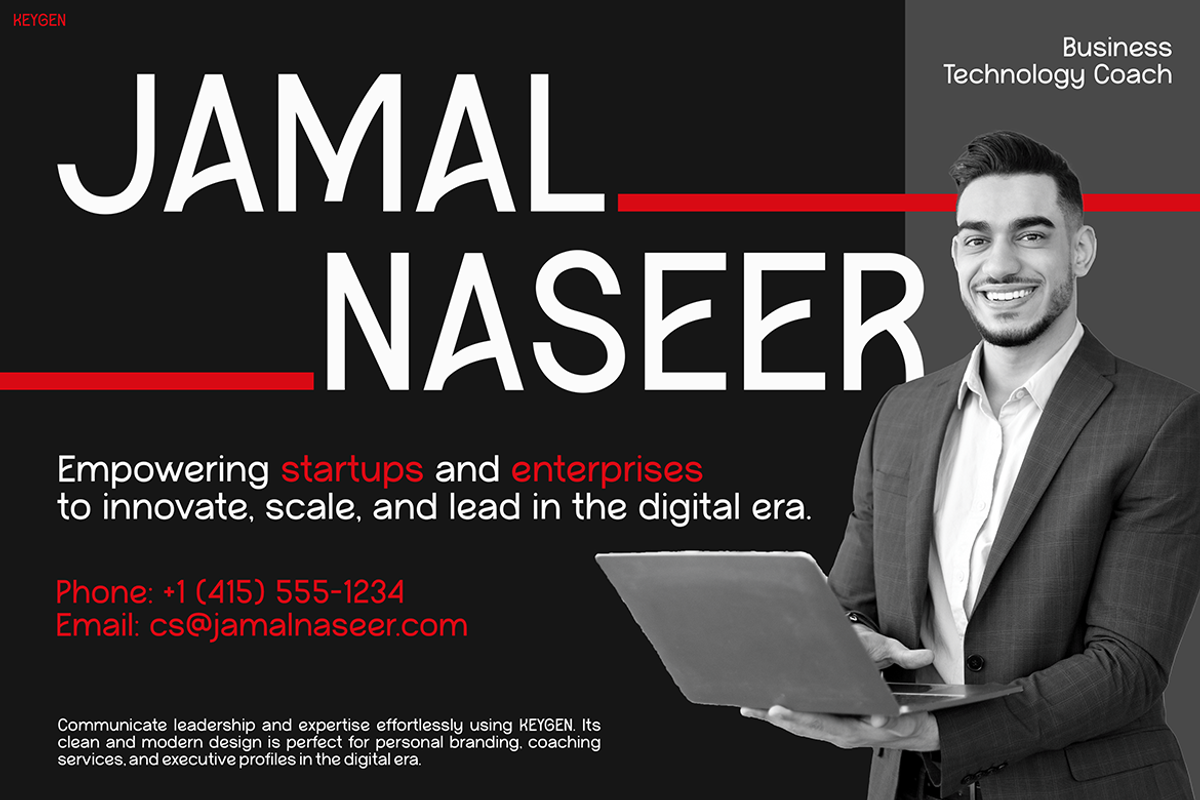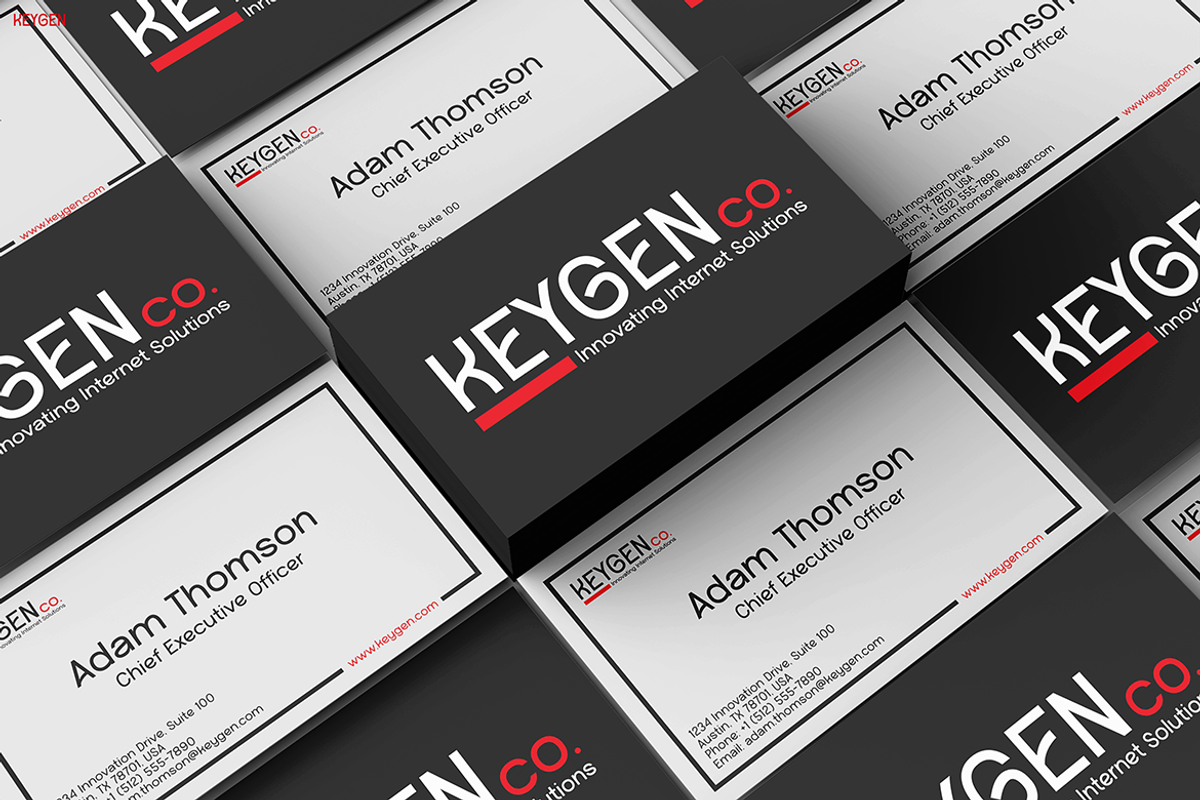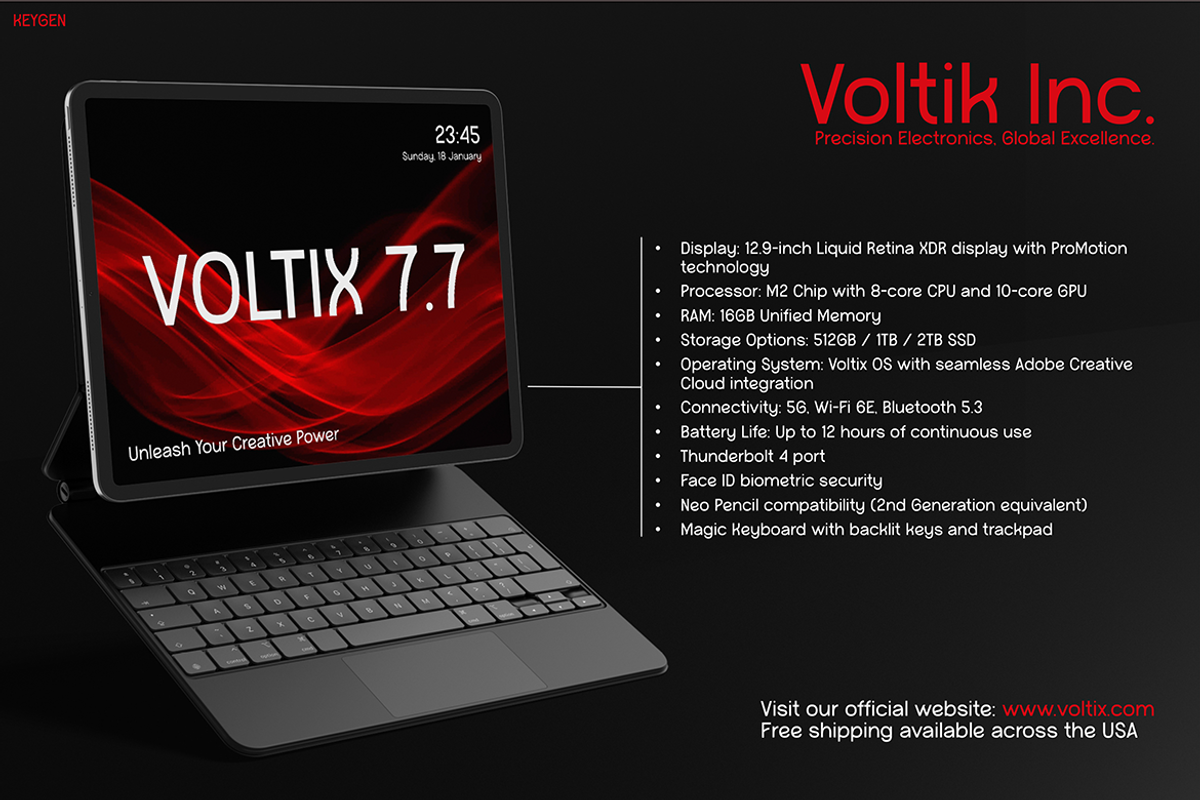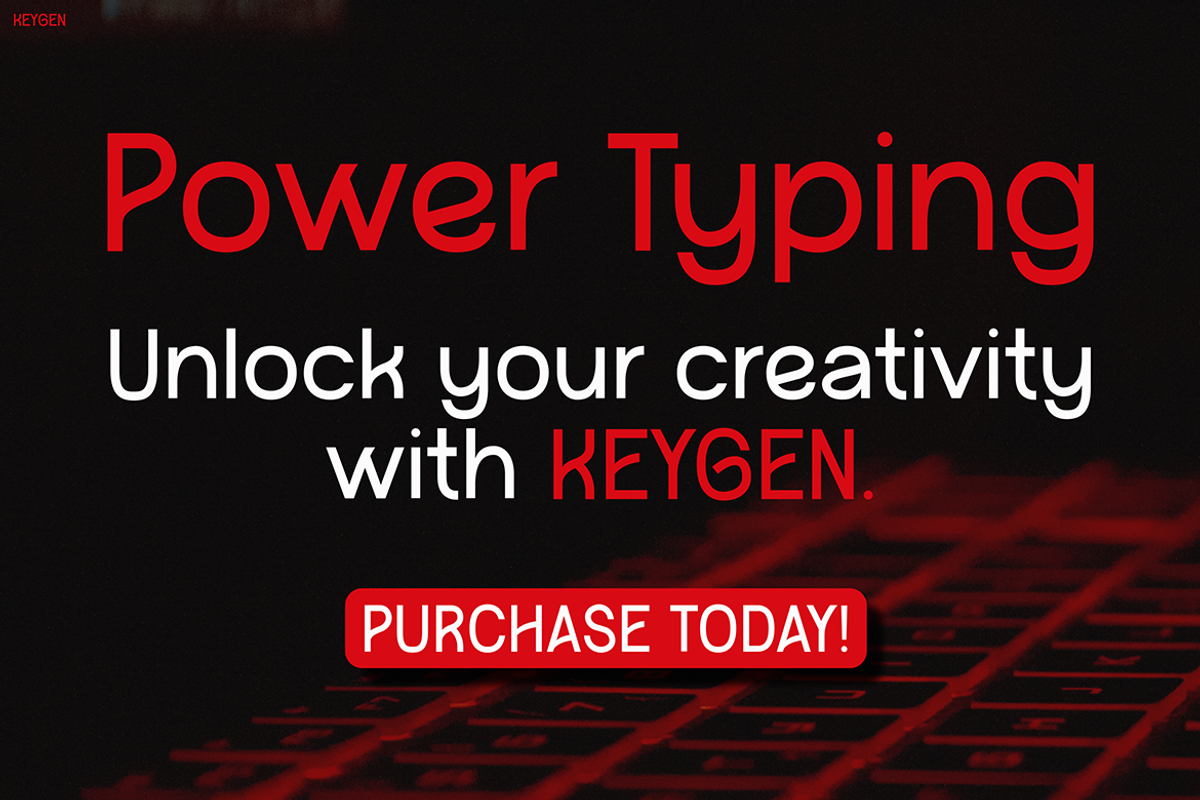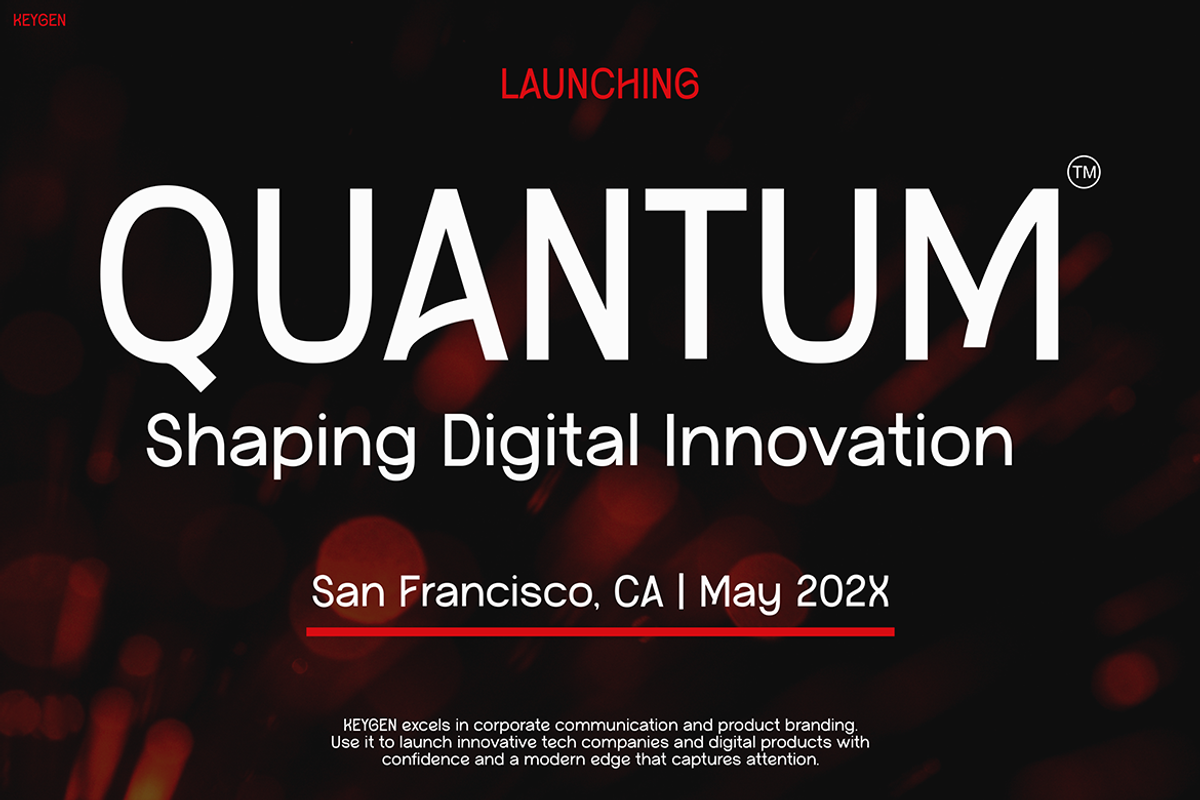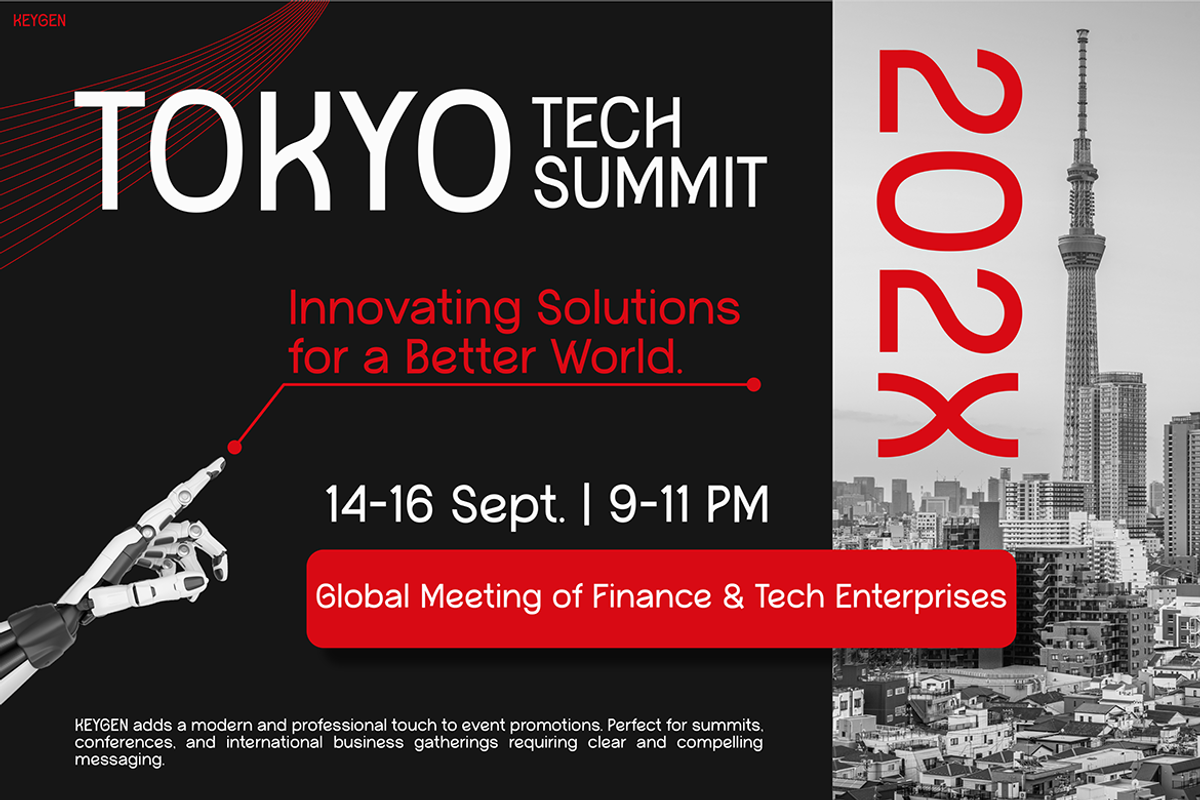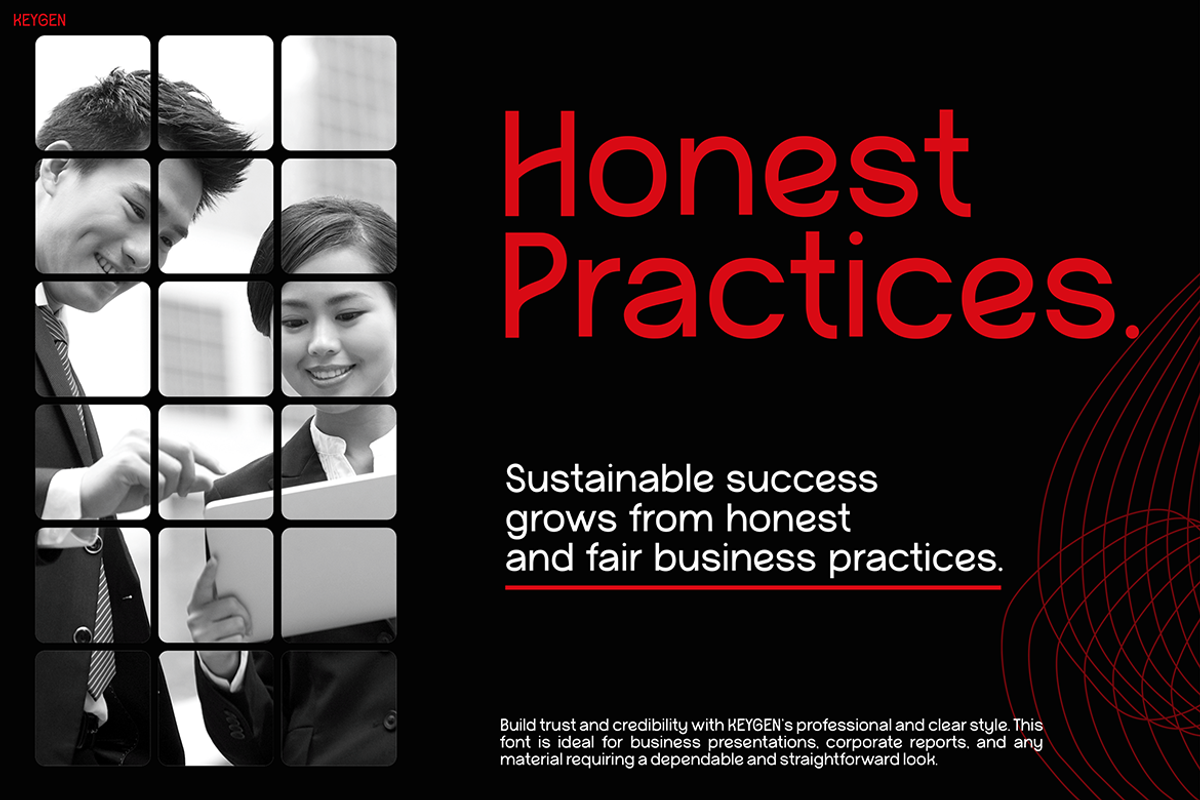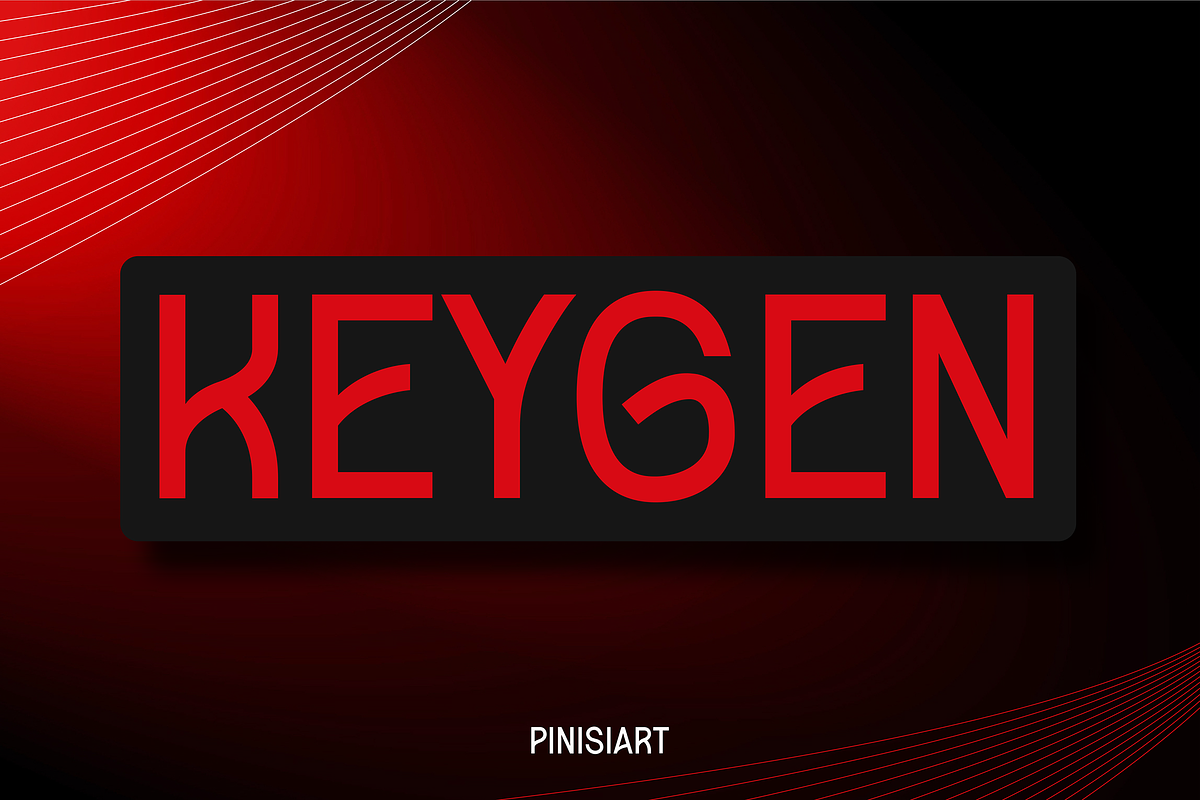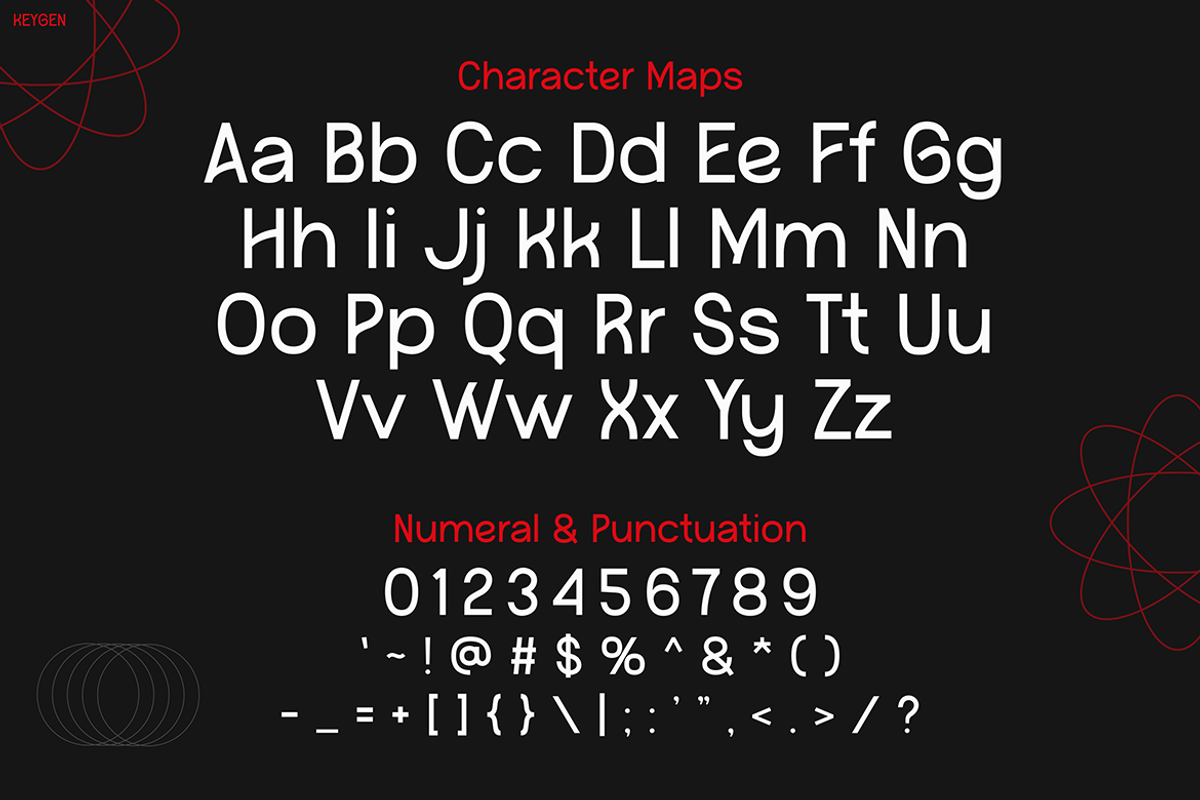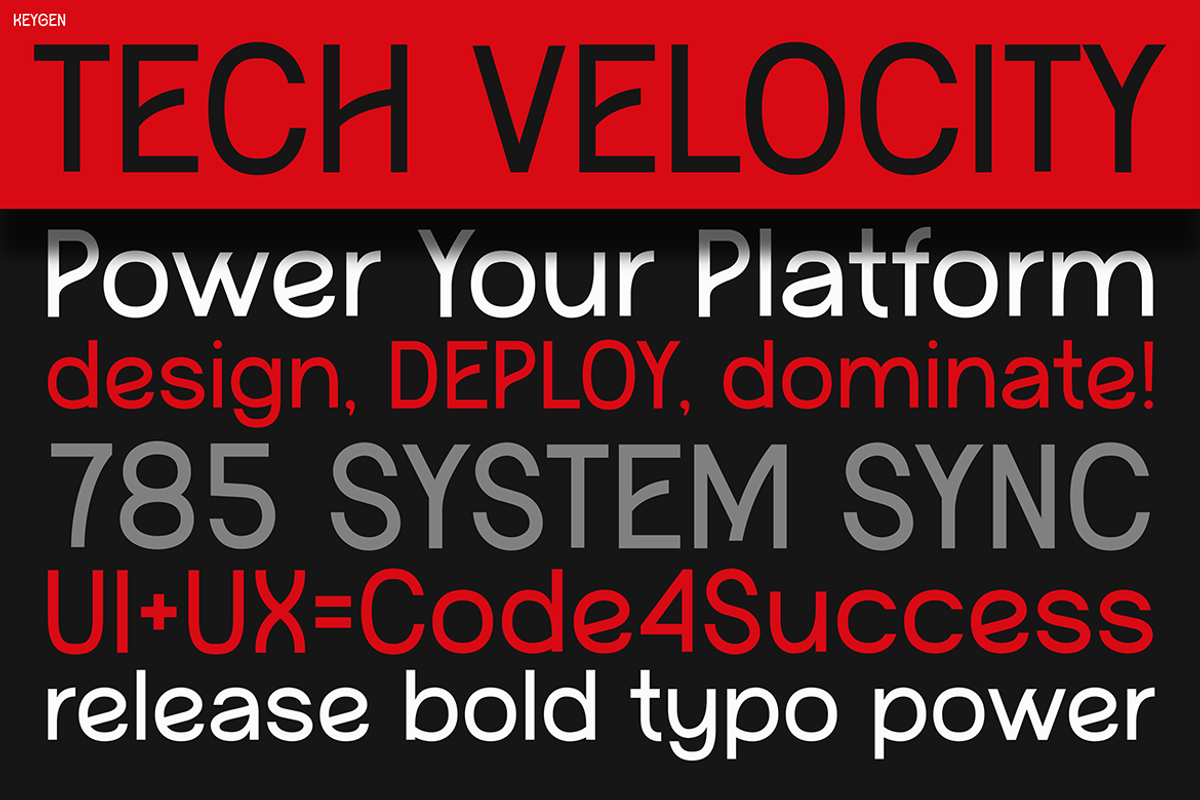
Keygen
Futuristic Font Keygen – A Bold Leap into Digital Aesthetics
Futuristic Font Keygen combines cutting-edge design with modern usability. From the very first glance, this typeface commands attention through its cyberpunk-inspired letterforms. Therefore, it stands out as more than just a font—it is a visual experience. With angular strokes, glitch-style accents, and futuristic symmetry, it feels like it belongs in a high-tech control room or digital dystopia.
In addition to its striking appearance, this font is highly functional. Each letter is meticulously designed for balance and clarity. Consequently, it works just as well in user interfaces as it does in attention-grabbing titles. Moreover, the unique character shapes contribute to a strong visual rhythm, which enhances the flow of your overall design.
Unlike many overly stylized display fonts, Futuristic Font Keygen maintains legibility without sacrificing creativity. Whether used in neon-lit posters, tech product packaging, or sci-fi video game assets, it elevates the aesthetic with a sleek, immersive feel.